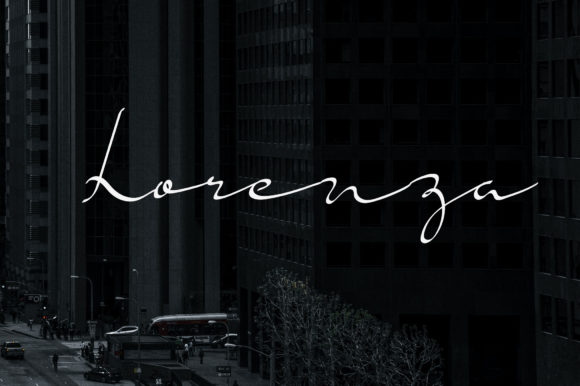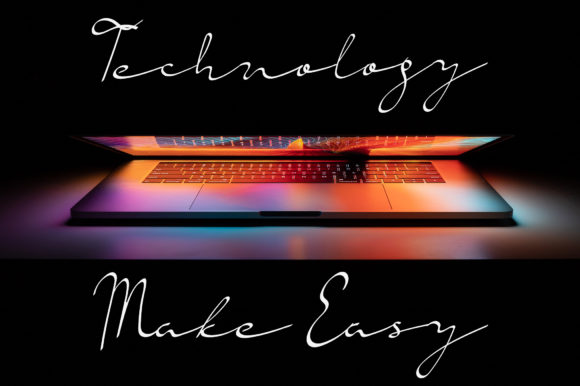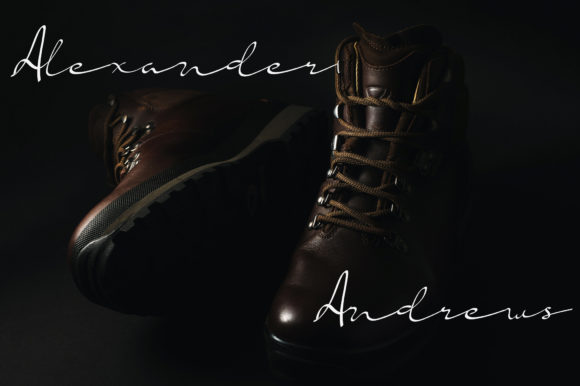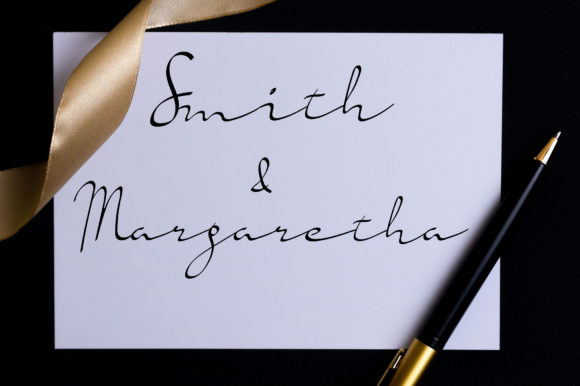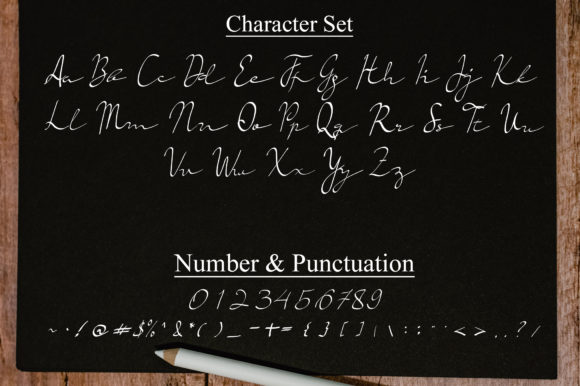
Elegance Redefined: Exploring the Earliest Signature Font
In the realm of typography, few fonts capture the essence of sophistication and charm as effortlessly as the Earliest Signature Font. This exquisite script font is a treasure trove of elegance, boasting smooth curves and a dainty appearance that instantly elevates any design. Whether you’re a designer looking to add a touch of luxury to your branding projects or a crafter seeking the perfect font for your editorial designs, Earliest Signature is sure to impress.
The Birth of Elegance: Characteristics of Earliest Signature Font
Earliest Signature Font is distinguished by its fluid, cursive strokes that dance across the page with grace and poise. Its smooth curves and delicate lines create a sense of movement and harmony, making it an ideal choice for designs that require a touch of sophistication. The font’s classic script style ensures that it remains timeless, never succumbing to fleeting trends.
Perfect for Fashion Branding
Fashion branding demands a level of sophistication and glamour that only a select few fonts can provide. Earliest Signature Font steps up to the challenge, offering a stylish and refined aesthetic that aligns perfectly with high-end fashion labels. Its elegant appearance makes it an excellent choice for:
- Packaging designs
- Advertising campaigns
- Editorial content
Elevating Editorial Designs
Editorial designs require a font that can convey a sense of authority, sophistication, and creativity. Earliest Signature Font fits the bill, adding a touch of elegance to any editorial project. Its versatility makes it suitable for:
- Magazine and newspaper articles
- Book titles and covers
- Blogger and influencer content
- Digital publications
Why Choose Earliest Signature Font?
With so many fonts available, what sets Earliest Signature apart? Here are a few compelling reasons to choose this beautiful script font:
- Timeless Elegance: Earliest Signature Font boasts a classic style that never goes out of fashion.
- Versatility: Suitable for a wide range of design projects, from fashion branding to editorial content.
- Ease of Use: Smooth curves and flowing lines make it easy to read and visually appealing.
- High-Quality Design: Crafted with precision and attention to detail, ensuring a professional finish.
Eariest Signature Font is a beautiful script font that embodies elegance and sophistication. Its smooth curves, dainty appearance, and timeless style make it an excellent choice for designers and crafters looking to elevate their projects. Whether you’re working on fashion branding or editorial designs, this font is sure to impress. Add Earliest Signature Font to your projects with confidence and experience the transformative power of elegance.